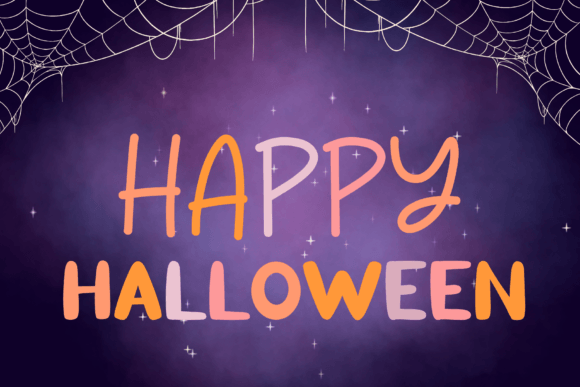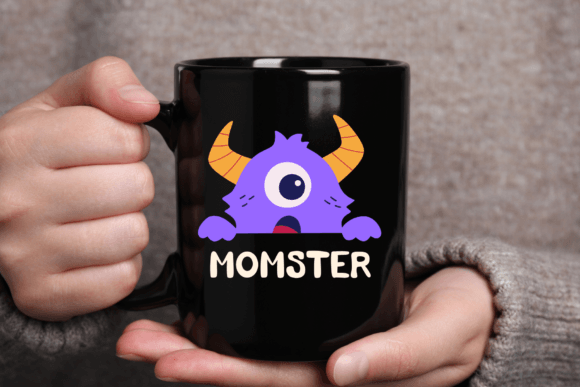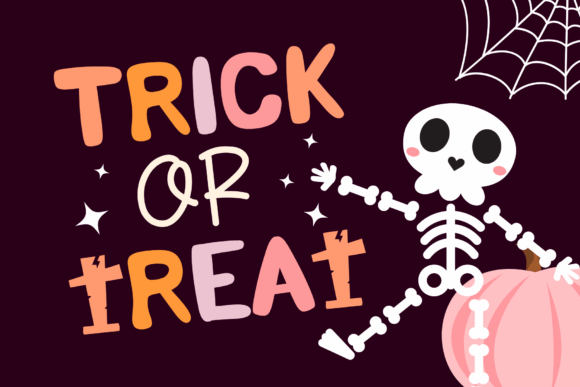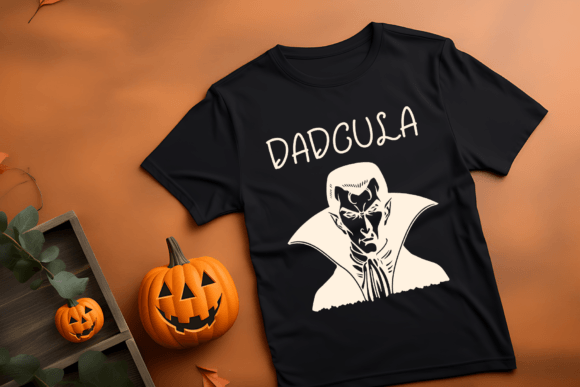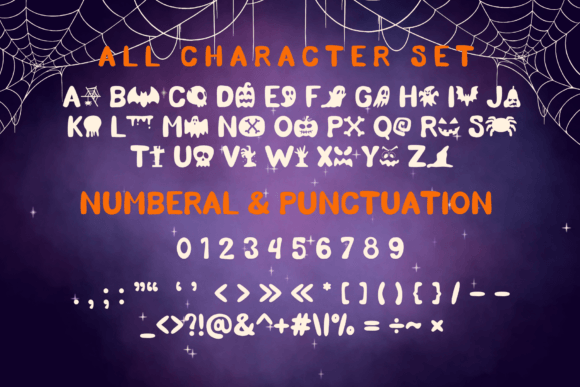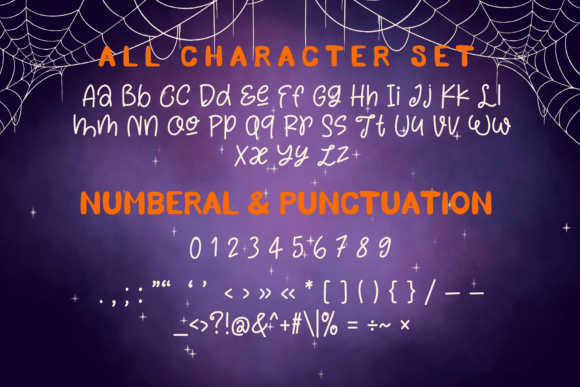
Unleash the Spookiness: Introducing Creepy October Font
As the witching hour approaches, designers and crafters are on the lookout for the perfect typography to add a touch of eeriness and excitement to their Halloween-themed projects. Look no further than the Creepy October Font, a stylish and versatile duo font that combines a display and a handwritten typeface to bring your designs to life.
A Font that Embodies Playfulness and Authenticity
Creepy October Font is not just any ordinary font. It’s a carefully crafted duo that embodies the perfect blend of playfulness and authenticity, making it an ideal choice for a wide range of projects. Whether you’re creating blog posts, logos, branding materials, ads, invitations, greeting cards, planners, photo albums, decorations, or more, this font is sure to add a unique and captivating touch.
Key Features of Creepy October Font
- Dual-font design: The Creepy October Font comes with two complementary fonts – a display font and a handwritten font. This allows you to mix and match styles to create visually appealing and dynamic designs.
- Playful and authentic feel: The font’s playful and authentic feel makes it perfect for Halloween-themed projects, but it’s also versatile enough to be used for other creative endeavors.
- High-quality design: The font is designed with high-quality and attention to detail, ensuring that your projects stand out from the crowd.
Creepy October Font is a must-have for designers and crafters who want to add a touch of spookiness and elegance to their projects. Whether you’re creating:
- Halloween-themed decorations: Add a creepy touch to your decorations, such as pumpkin carvings, wall art, and centerpieces.
- Invitations and greeting cards: Create eye-catching invitations and greeting cards for Halloween parties, events, and celebrations.
- Blog posts and social media graphics: Add a touch of Halloween spirit to your blog posts and social media graphics.
- Logos and branding materials: Use the Creepy October Font to create unique and memorable logos and branding materials for your clients or business.
Tips and Inspiration for Using Creepy October Font
To get the most out of the Creepy October Font, here are some tips and inspiration to get you started:
- Experiment with font combinations: Try pairing the display font with the handwritten font to create visually appealing and dynamic designs.
- Play with colors and textures: Add an extra layer of depth and interest to your designs by experimenting with different colors and textures.
- Get creative with Halloween-themed designs: Use the Creepy October Font to create unique and eye-catching Halloween-themed designs, such as jack-o’-lanterns, ghosts, and bats.